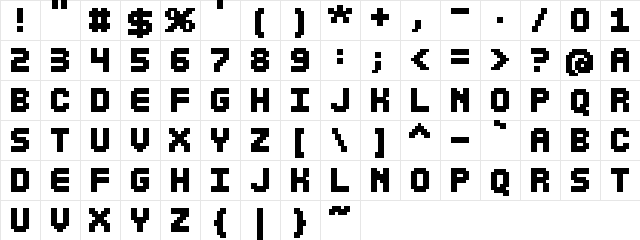
JunkyardCalibo Regular
| Designer | JunkyardSam |
Design Context for JunkyardCalibo Typeface
JunkyardCalibo takes a measured approach to typography — its balanced proportions and neutral character make it a reliable workhorse for both digital and print work.